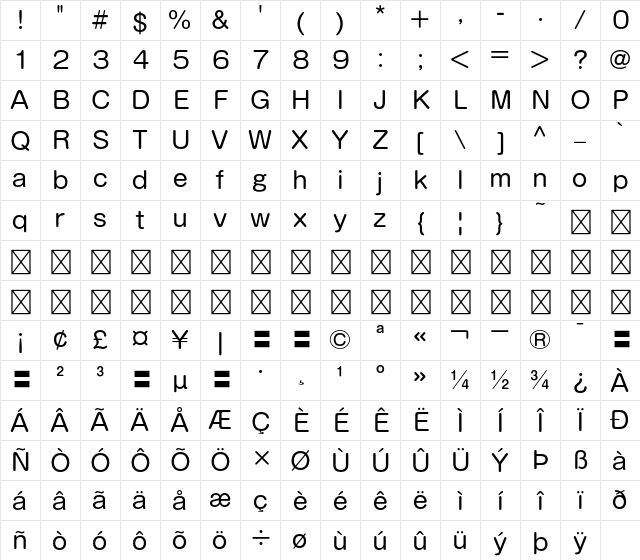
G-OTF KShin Maru Go Std R
Style: R
G-OTF KShin Maru Go Std Family
Design Context for G-OTF KShin Maru Go Std
G-OTF KShin Maru Go Std is a composed and adaptable typeface that performs quietly and consistently across a wide range of design contexts.
Pro Tip: Use G-OTF KShin Maru Go Std in both headline and body roles to test its range before committing to a single application.